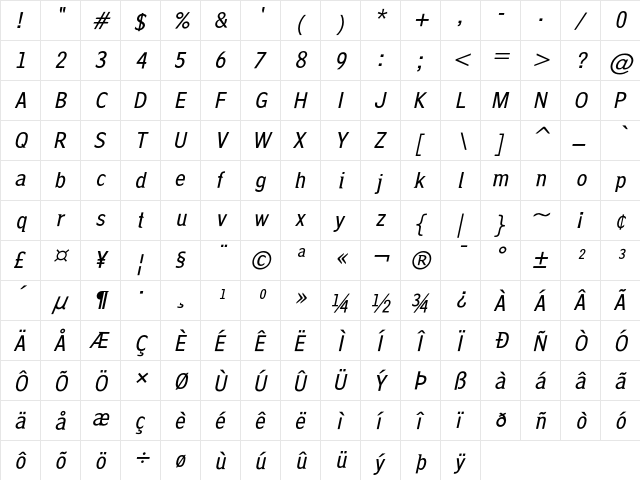
CliqueWedge Oblique Font Preview
CliqueWedge Oblique
CliqueWedge Oblique Font Details
Design Context for CliqueWedge Typeface
CliqueWedge takes a measured approach to typography — its balanced proportions and neutral character make it a reliable workhorse for both digital and print work. The slanted form adds forward momentum and visual energy.
Pro Tip: Try CliqueWedge for annotation and caption copy alongside an upright companion — the contrast in angle creates a dynamic but ordered typographic system.